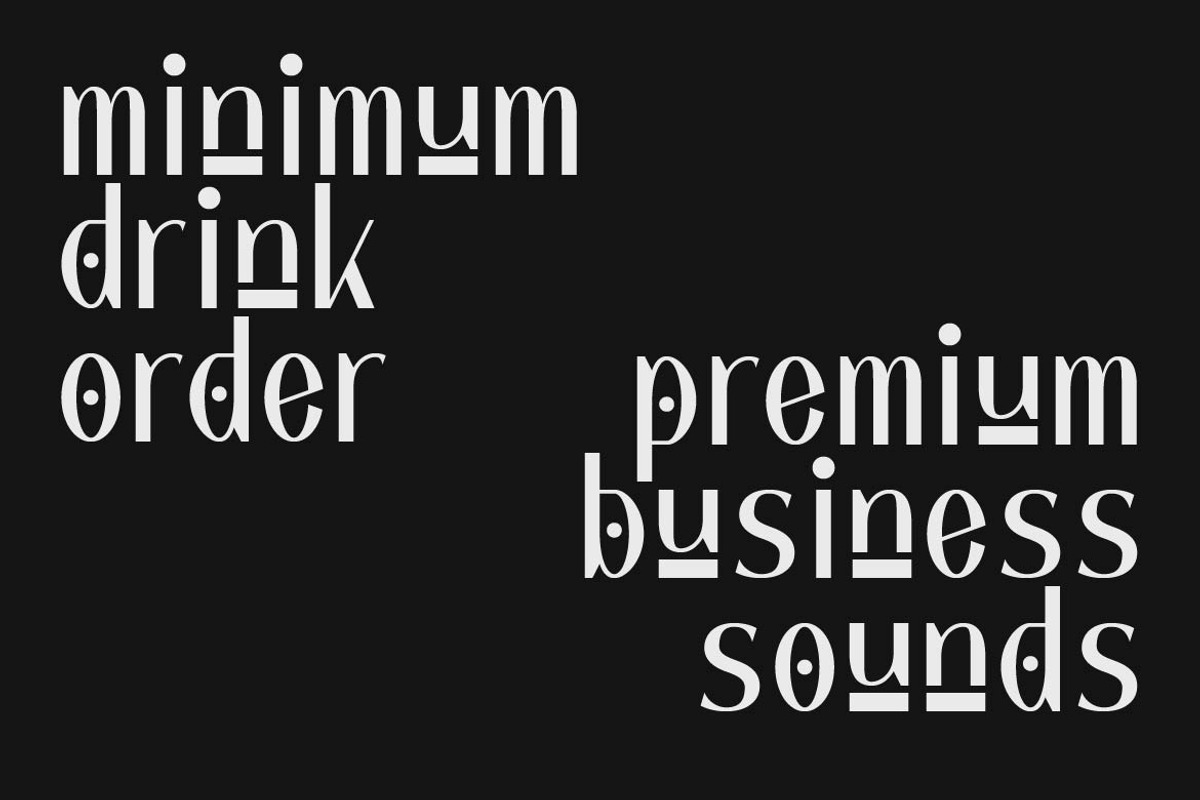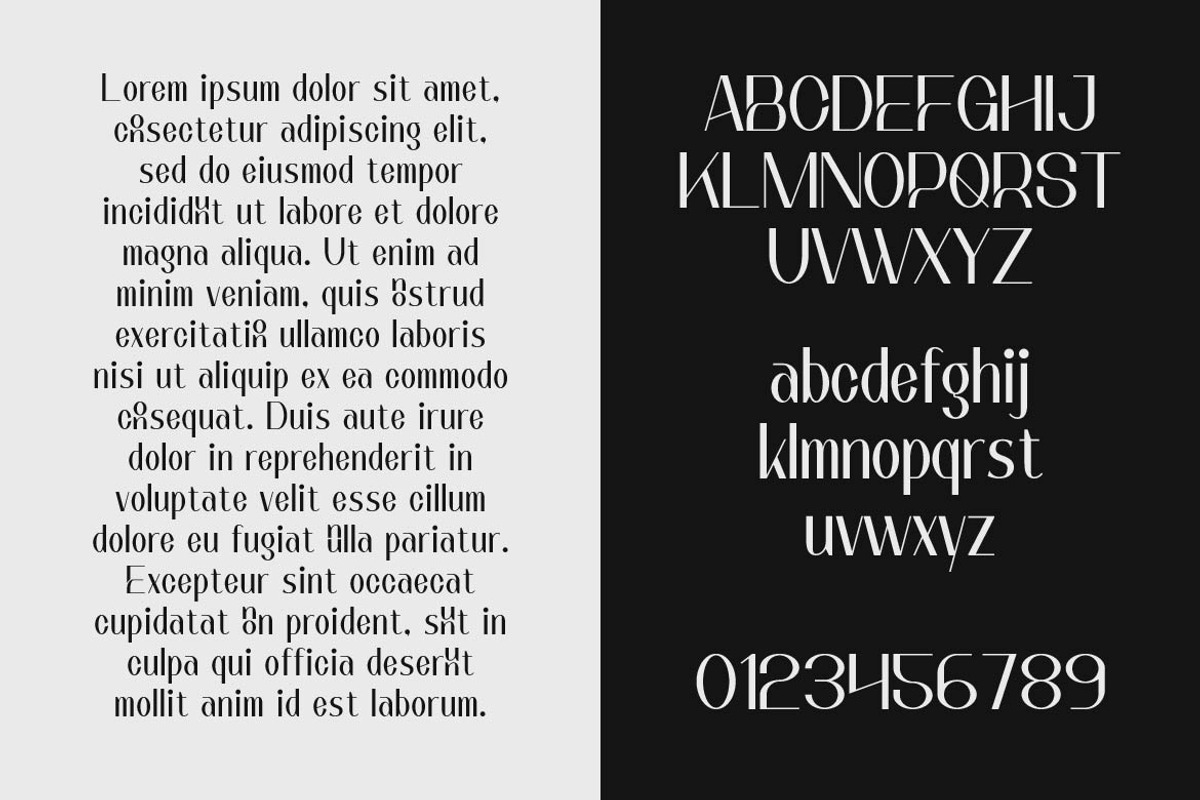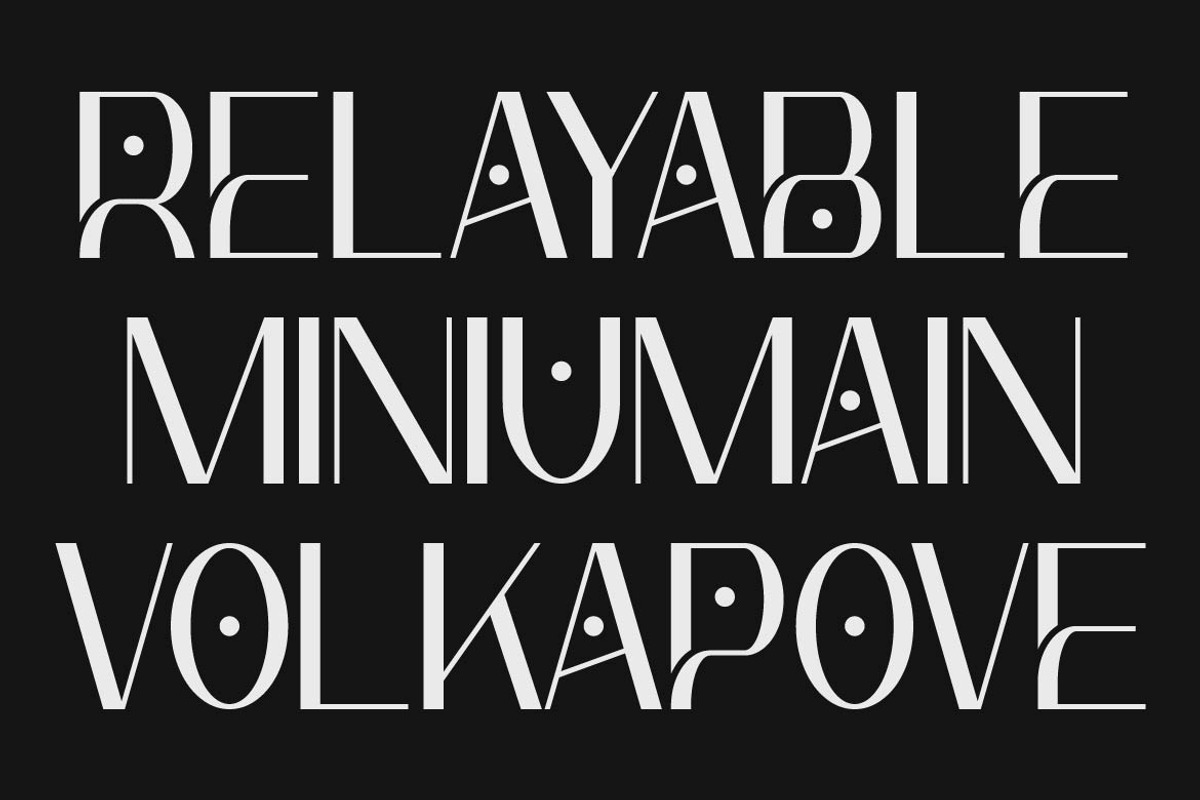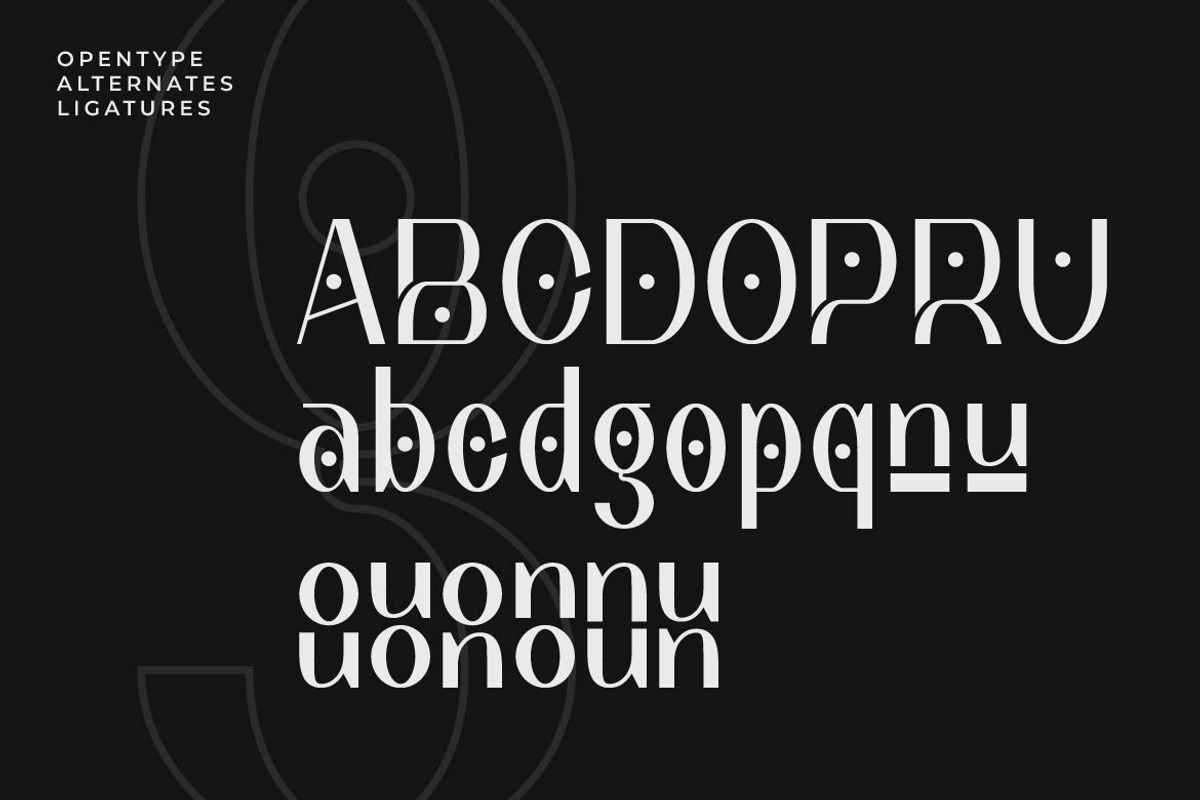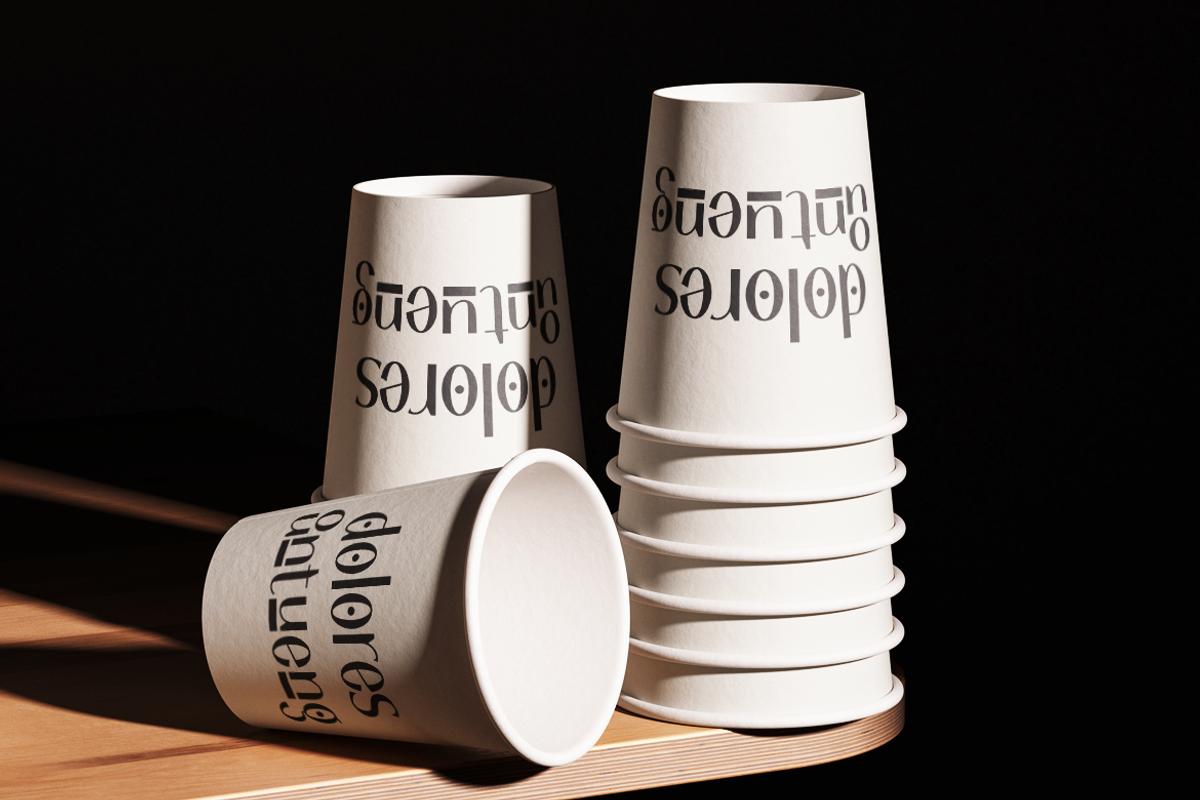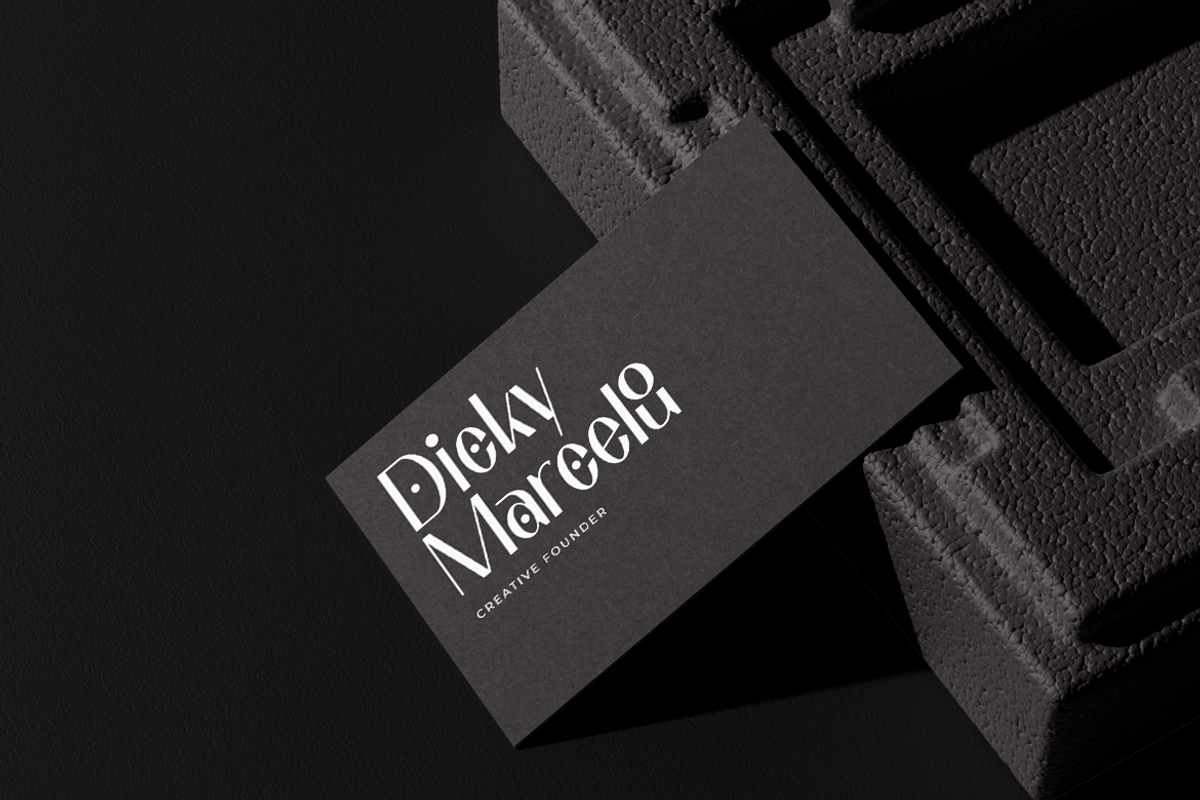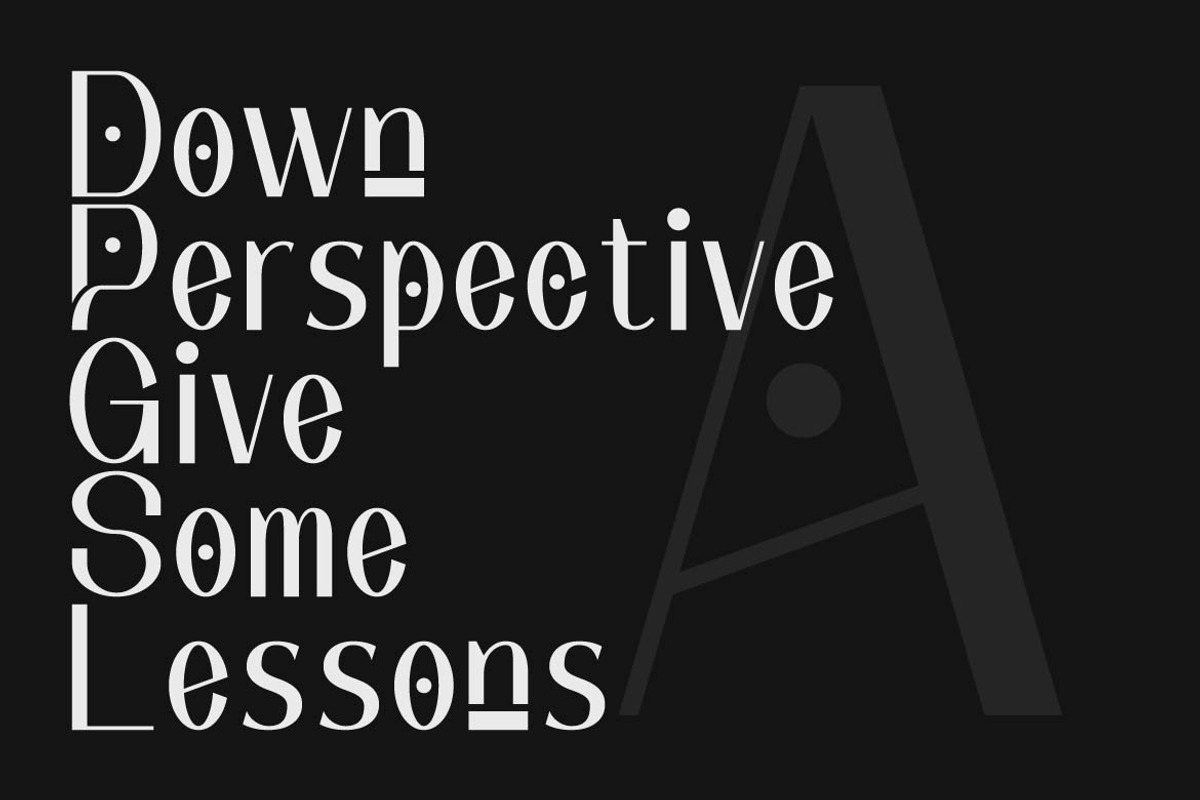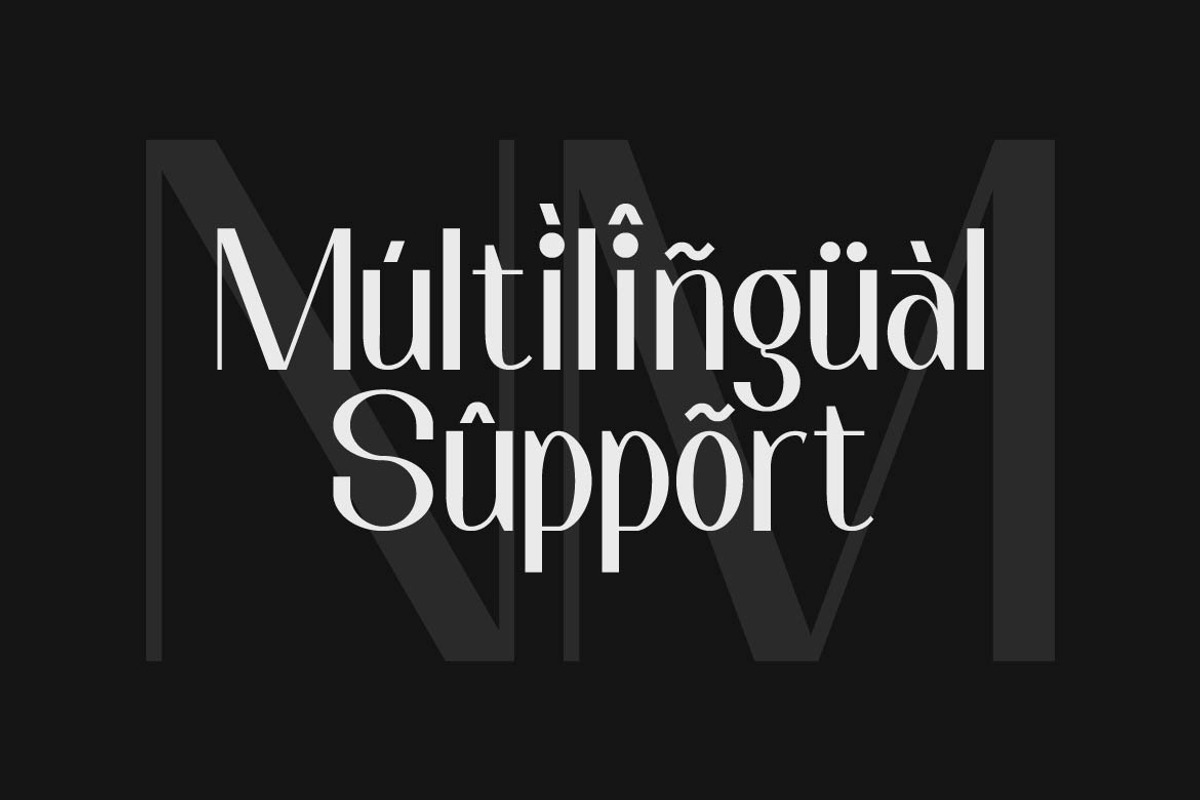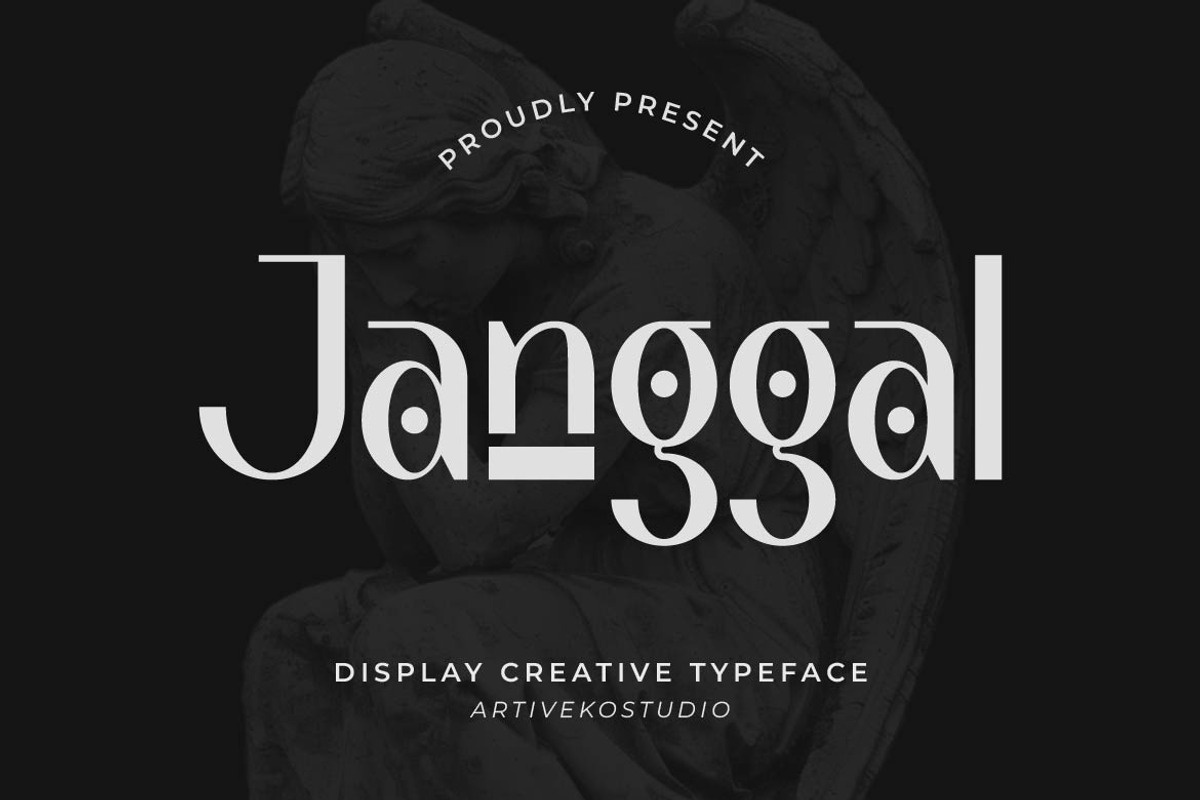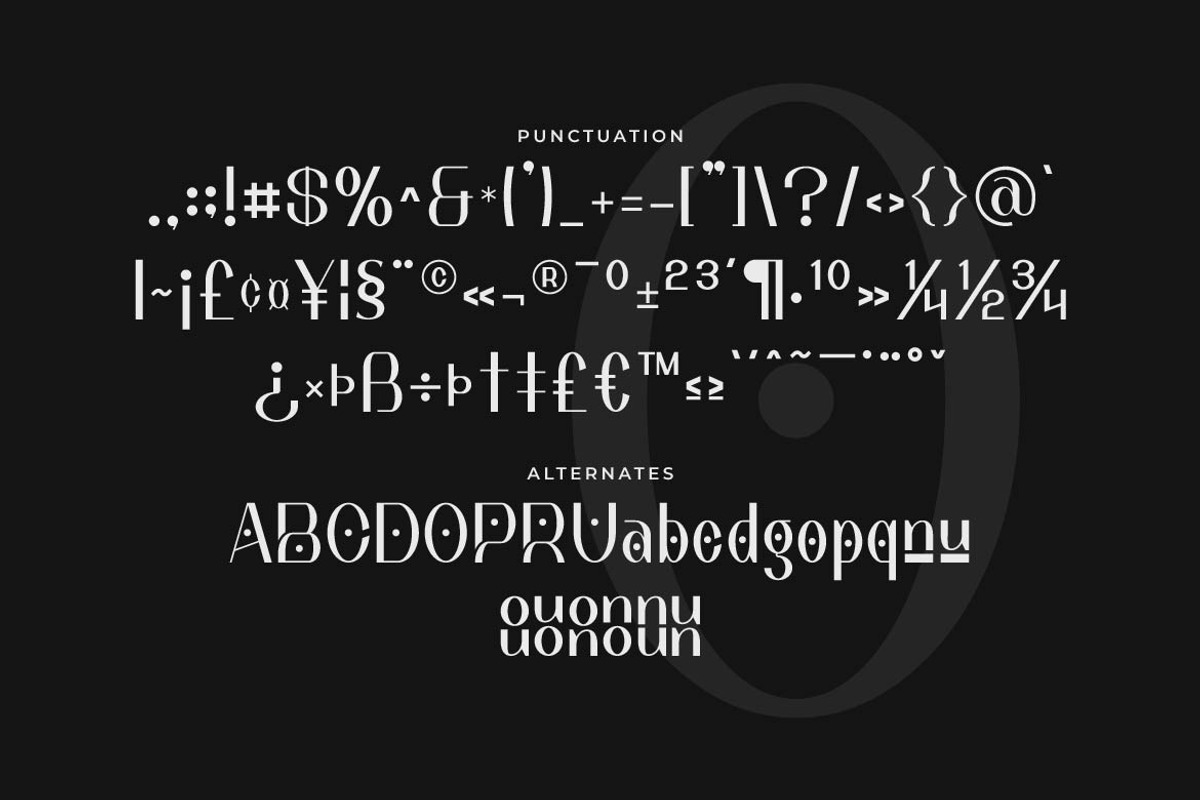
Janggal – Luxury Minimalist Font
Janggal is a luxury minimalist sans serif typeface crafted for brands that value elegance, precision, and timeless simplicity. With refined letterforms, balanced proportions, and clean geometric details, Janggal delivers a sophisticated visual identity that feels modern, premium, and effortlessly stylish.
Ton of glyphs